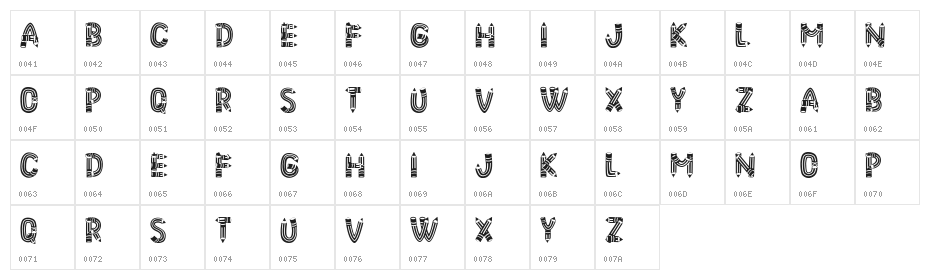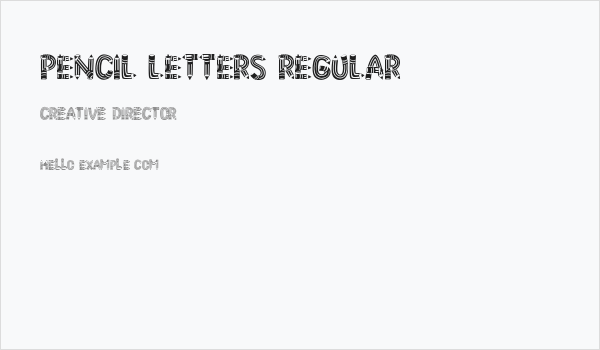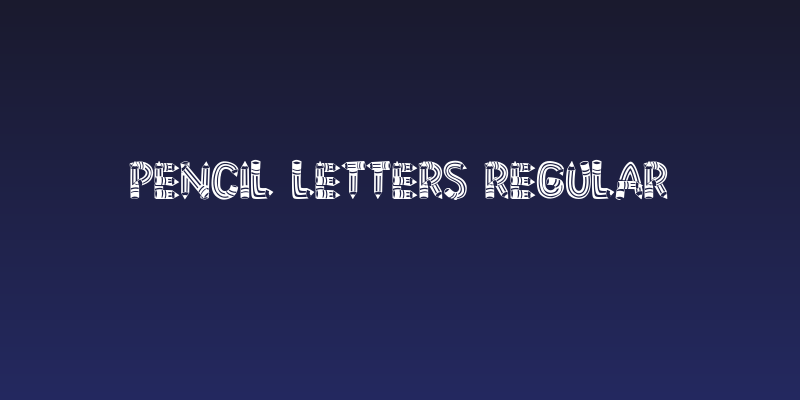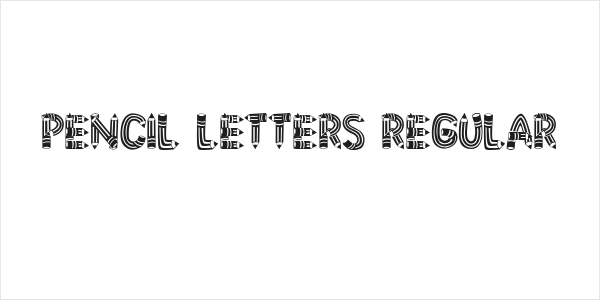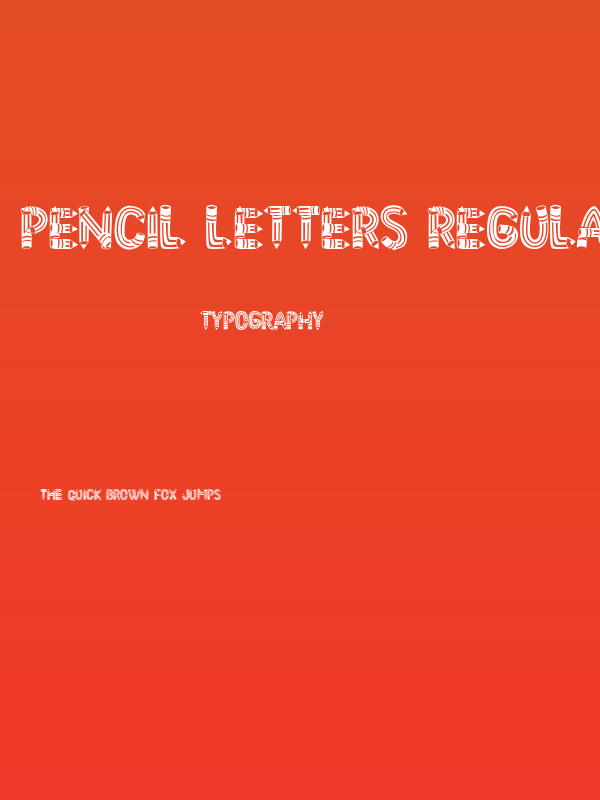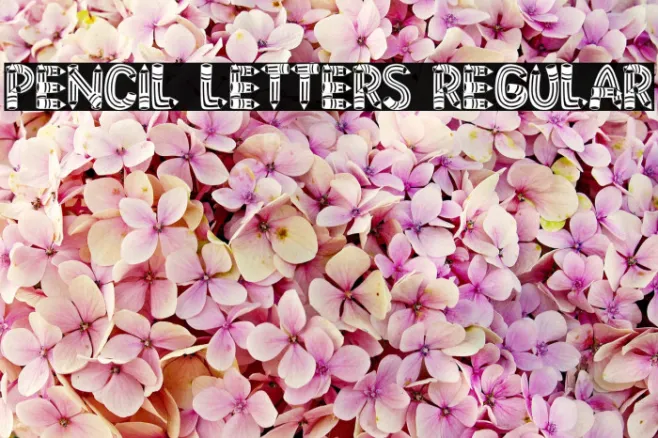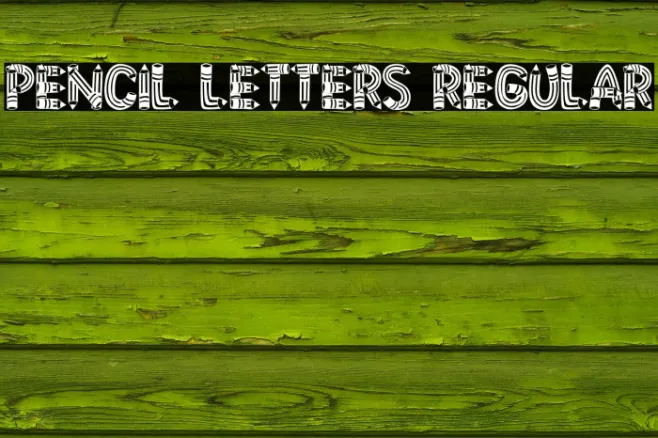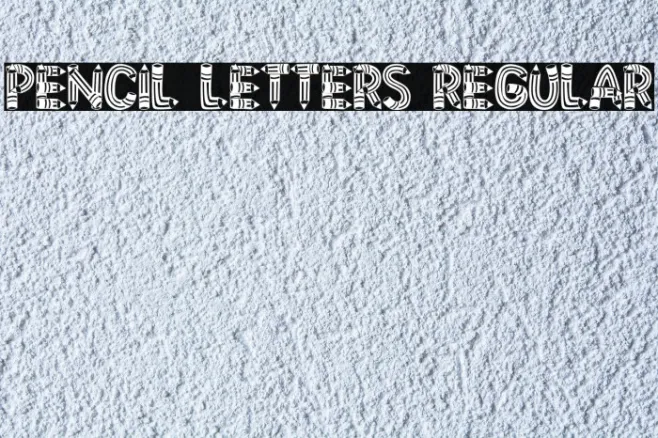
Pencil Letters Regular Font
Pencil Letters Regular Description
This playful and creative font features letters designed to resemble pencils, with each character incorporating elements like pencil tips and erasers. The design is bold and visually striking, making it ideal for projects that require a fun and educational theme. The letters are crafted with a sense of whimsy, using a combination of geometric shapes and lines to mimic the appearance of pencils. This font is perfect for children's books, educational materials, and any design that seeks to capture a sense of creativity and learning.
| Overall Style | Playful, Creative |
| Proposed Projects | Children's books, educational posters, school event flyers, creative art projects. |